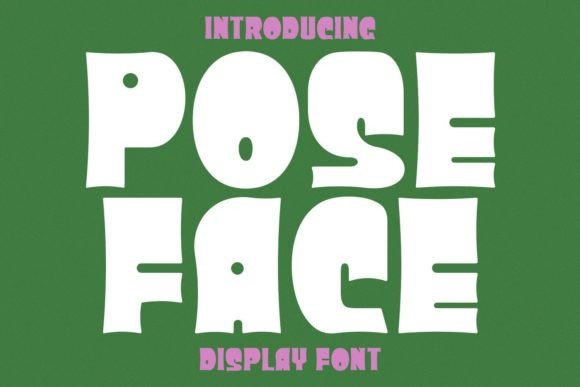
Poseface Font: The Epitome of Creativity and Distinction for Your Design Projects
In the realm of visual communication, typography holds immense power to shape perceptions, convey messages, and stir emotions. Introducing Poseface Font, a remarkable display sans serif font that transcends the ordinary, inviting you to elevate your creative endeavors to new heights.
Crafted by the ingenious minds at Maulana Creative, Poseface Font distinguishes itself with its bold strokes and playful character, promising to infuse your designs with a touch of whimsy and individuality. This extraordinary font is meticulously designed to cater to a diverse range of creative projects, from captivating logos that leave a lasting impression to social media posts that demand attention.
With Poseface Font as your chosen companion, you'll effortlessly create movie titles that ignite curiosity and book titles that intrigue readers from the very first glance. Its versatility extends to short and long text letters, making it an ideal choice for captivating headlines, thought-provoking articles, and engaging blog posts.
But Poseface Font's versatility doesn't end there. It harmonizes beautifully with both sans and serif fonts, providing endless opportunities for creative combinations. Imagine pairing Poseface Font's bold presence with the elegance of a classic serif font for a truly striking visual impact.
Immerse yourself in the world of Poseface Font and unlock a treasure trove of creative possibilities. Let your imagination soar as you craft stunning logos that exude professionalism, social media posts that spark engagement, and marketing materials that leave an indelible mark on your audience.
Embrace Poseface Font today and embark on a creative journey like never before. Unleash your artistic flair and create designs that resonate with your audience, leaving them captivated and inspired.